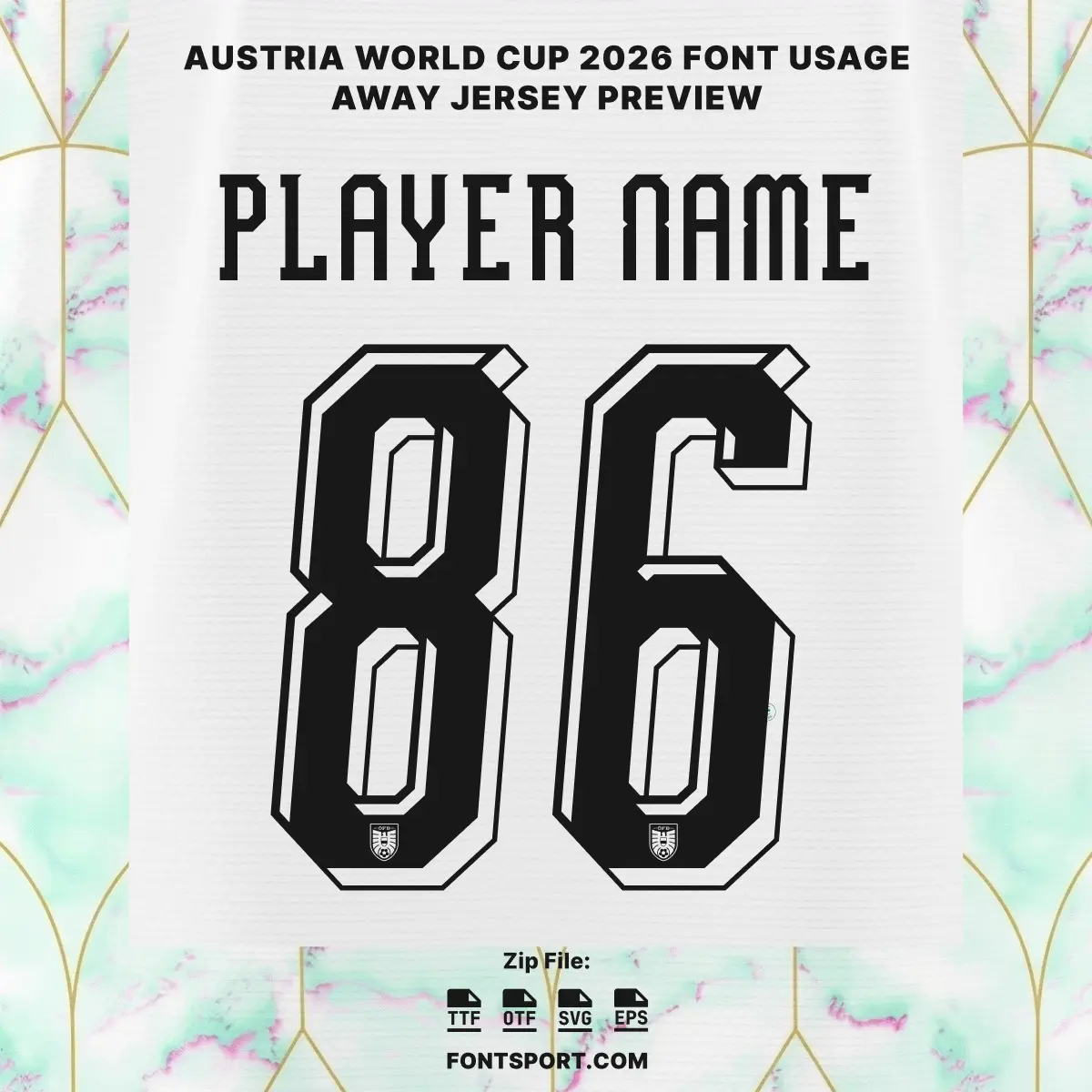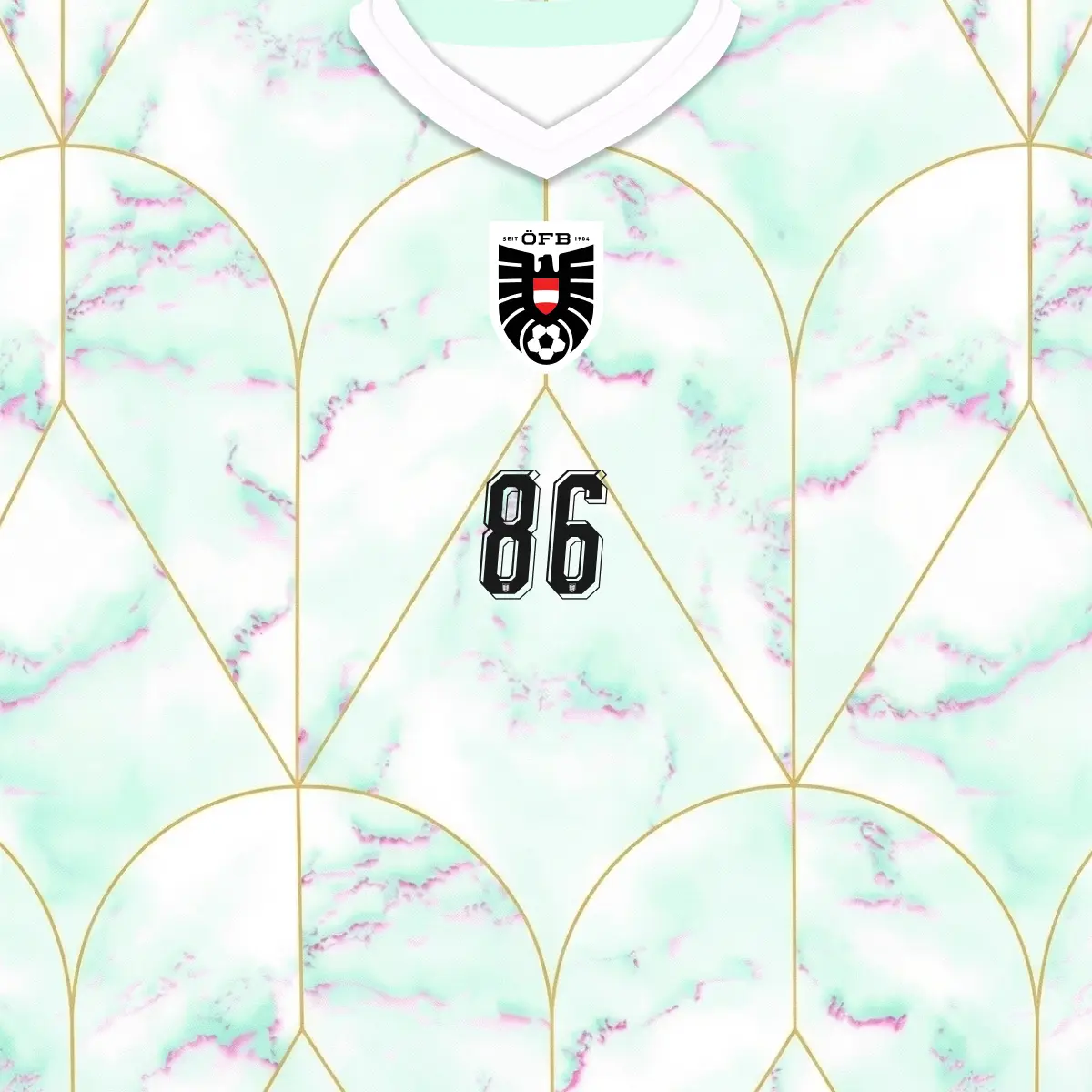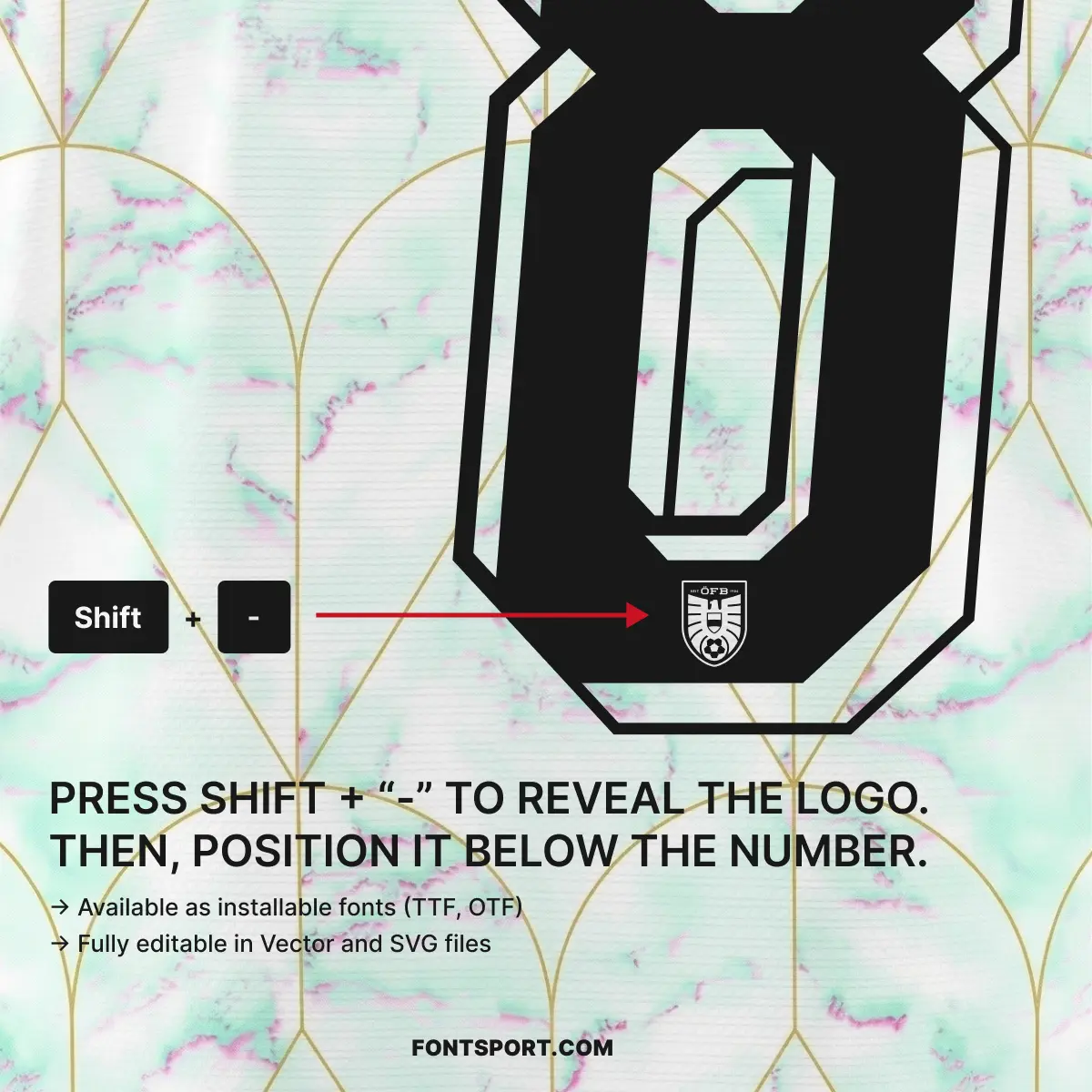
The Austria World Cup 2026 Away Font Kit celebrates the triumphant return of the Austrian national team to the FIFA World Cup after a 28-year wait. This font captures the “quiet confidence” and refined class of Austrian football, blending traditional elegance with modern athletic performance. As Ralf Rangnick’s side prepares to bring their high-intensity gegenpressing style to North America, this typeface stands as a bold symbol of the nation’s footballing renaissance.
Complete A–Z Character Set: Features the clean, modern uppercase letters that will be worn by icons like David Alaba and Marcel Sabitzer.
Full 0–9 Number Set: Optimized for maximum visibility, mirroring the numbers that will lead the Wunderteam through Group J.
Extra Multilingual Alphabet: Full support for accented characters (Ä, Á, È, Î, Ë, etc.), allowing you to accurately represent international roster names.
Integrated Team Identity: Add an authentic finish to your designs by revealing the official ÖFB-style logo typography through a simple keyboard shortcut.
This bundle is ideal for creating personalized football kits, match-day graphics, or unique merchandise that echoes the pride of a nation back among the global elite.
This font kit is engineered for designers who want to represent the “Kaffeehaus” culture and footballing precision of Austria:
Alpine-Inspired Aesthetic: The typography is part of a progressive design that reimagines Vienna’s café culture with a topographic marble pattern.
Versatile Design Asset: An ideal font for jersey printing, sports branding, and team uniforms that require a “well-balanced and confident” look.
PUMA Performance Era: Reflects the latest visual language from PUMA’s 2026 World Cup collection, designed for elite-level performance.